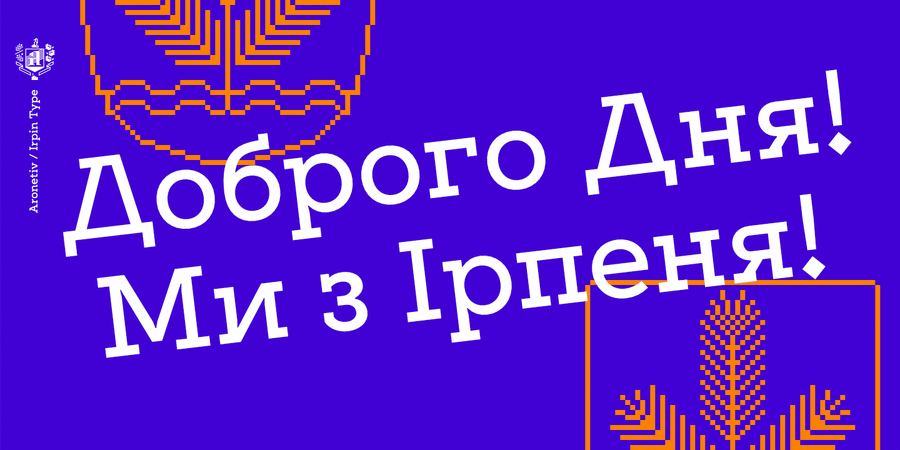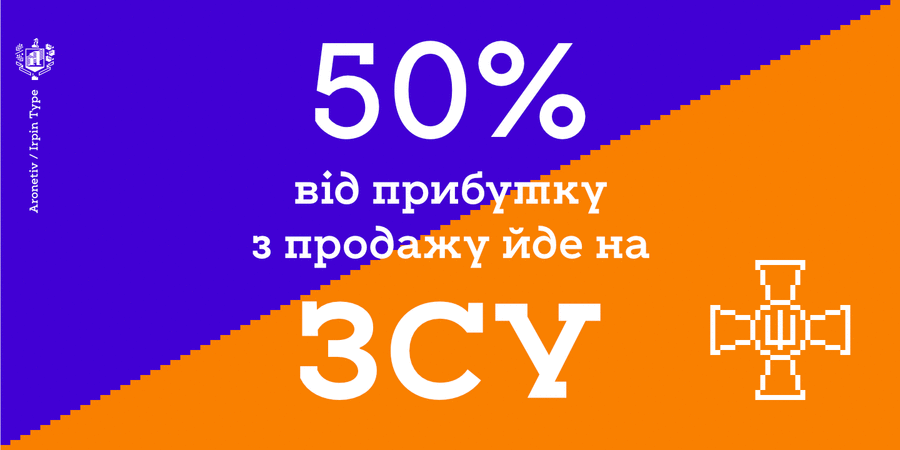
About Irpin Type is an original typeface dedicated to the city of Irpin. It is a modern slab serif with geometric shapes inspired by the Ukrainian avant-garde of the 20th century. The typeface is designed for everyday use, for books, logos, corporate identity. It can also be used in posters and presentations where a confident character is needed. Irpin Type works best in large size, but it is also well readable in small size. The font has original graphemes for "д", "т", "ф", "ч" та"у".
The city of Irpin suffered significantly from the russian occupation. By the Decree of the President of Ukraine Irpin was awarded the honorary title "Hero City of Ukraine". 50% of the profit from the sale of this typeface goes to support the Armed Forces of Ukraine.
The typeface was designed by Alexey Popovtsev in 2022.